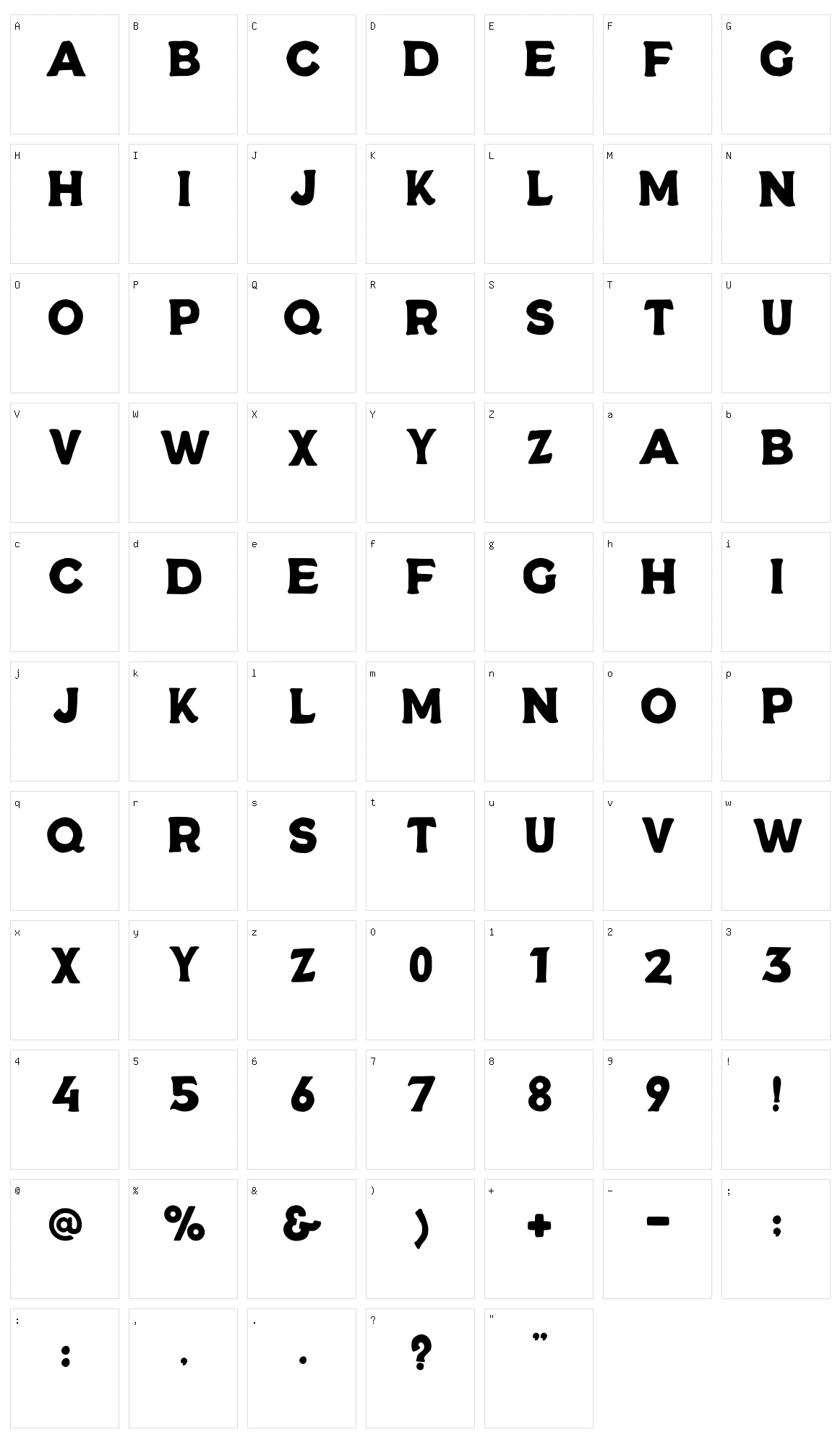
The free font Wilder Wild is carefully designed by Ilham Paksi, showcasing a thoughtful balance of creativity and usability and falls under the Retro font style. When you download the ZIP file, it contains only 28.7 KB of font files, making it lightweight and quick to download. Please review the license details below to understand permitted usage and distribution rights. If license information is not available, we recommend using this font for personal projects only or contacting the author directly for commercial usage permissions.
-WILDERWILD FONT_